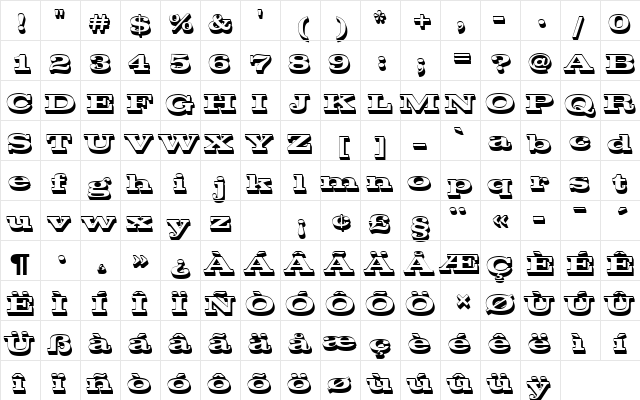
ClarendonTBolExpSh1 Regular
Design Context for ClarendonTBolExpSh1 Typeface
ClarendonTBolExpSh1 combines the readability of serif typography with the visual weight of a slab construction, resulting in a typeface that feels both authoritative and approachable.
Works well in editorial design, news publishing, impactful branding, and poster typography.
Pro Tip: Try ClarendonTBolExpSh1 set tight in headlines for a classic editorial feel. Its slab serifs create strong horizontal rhythm that anchors a page layout.